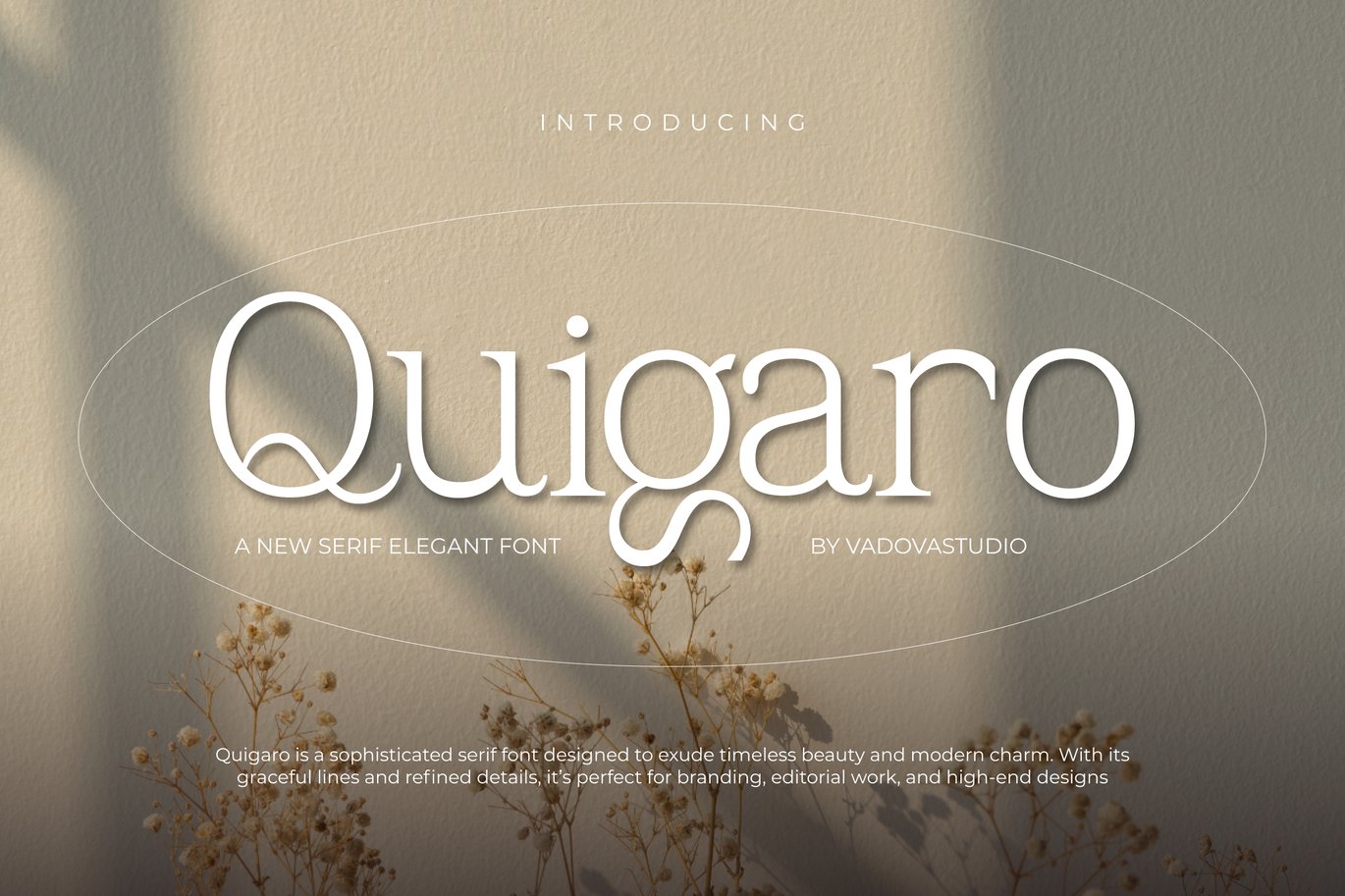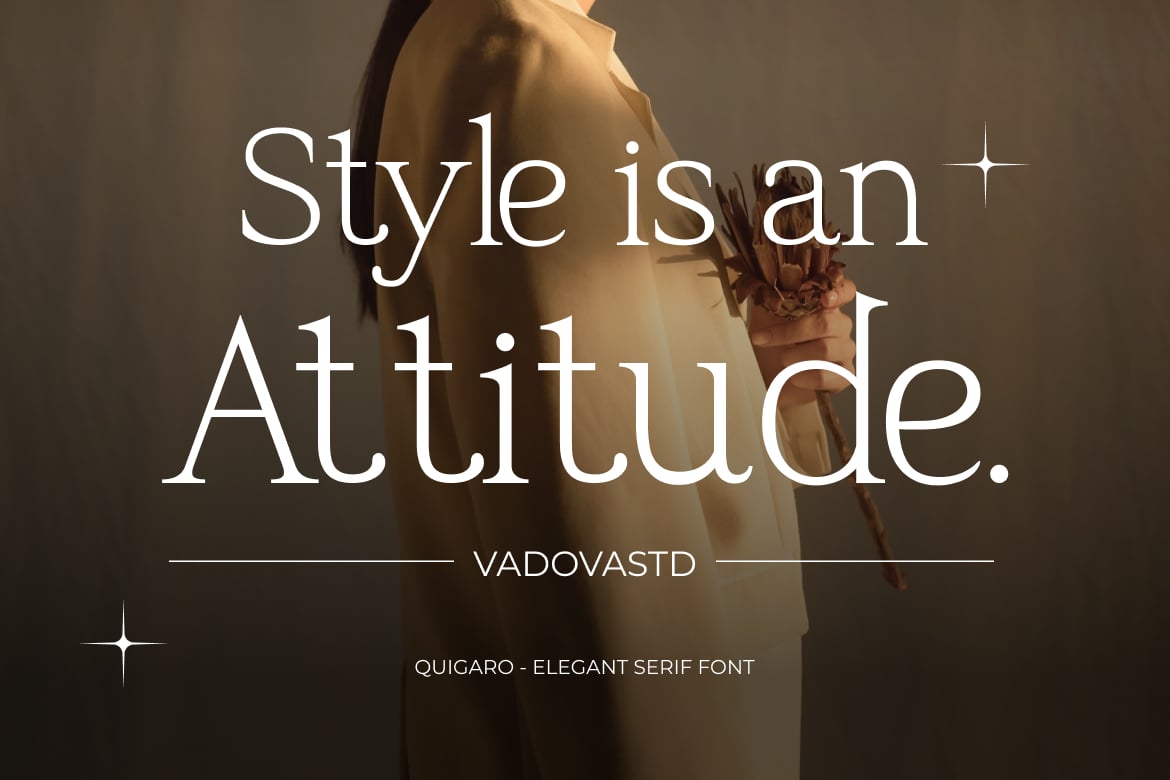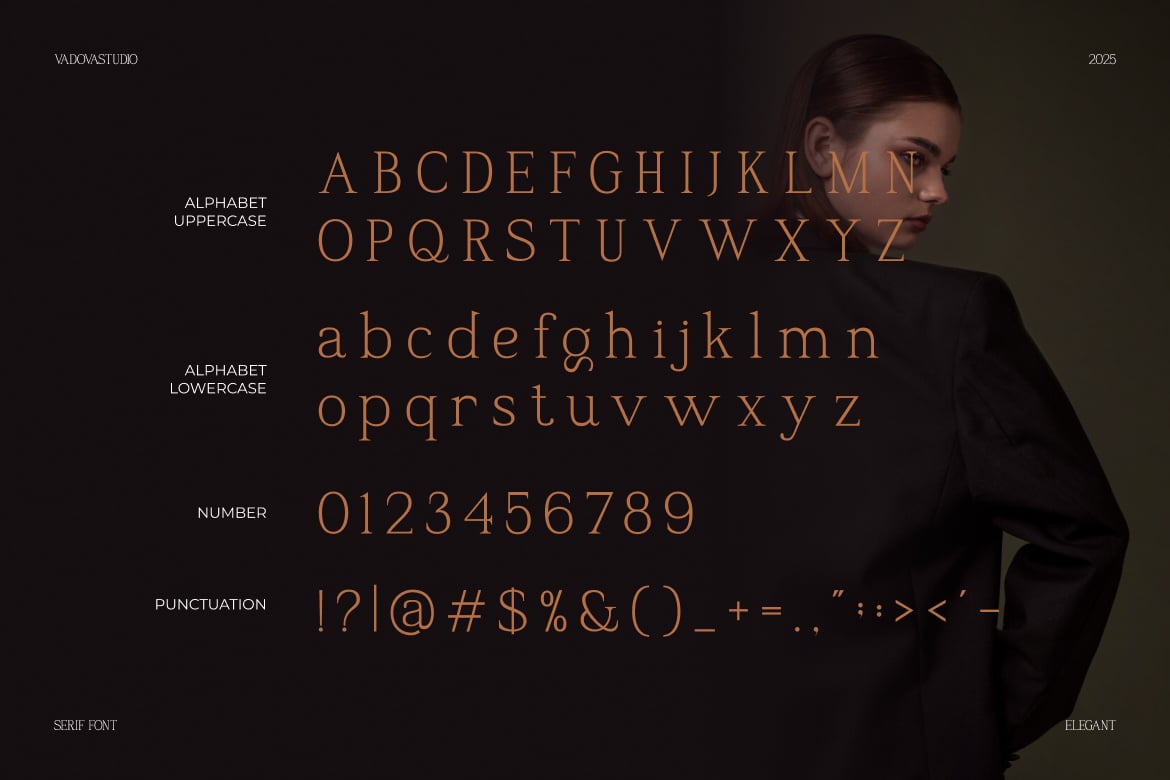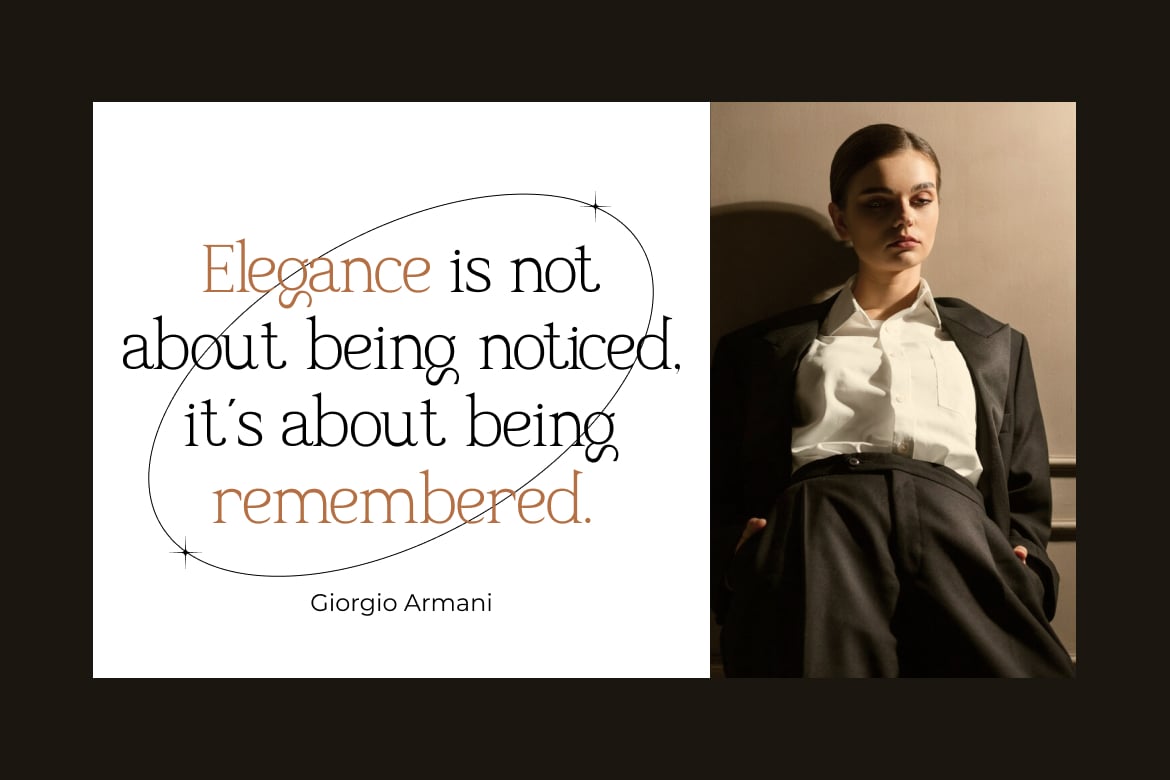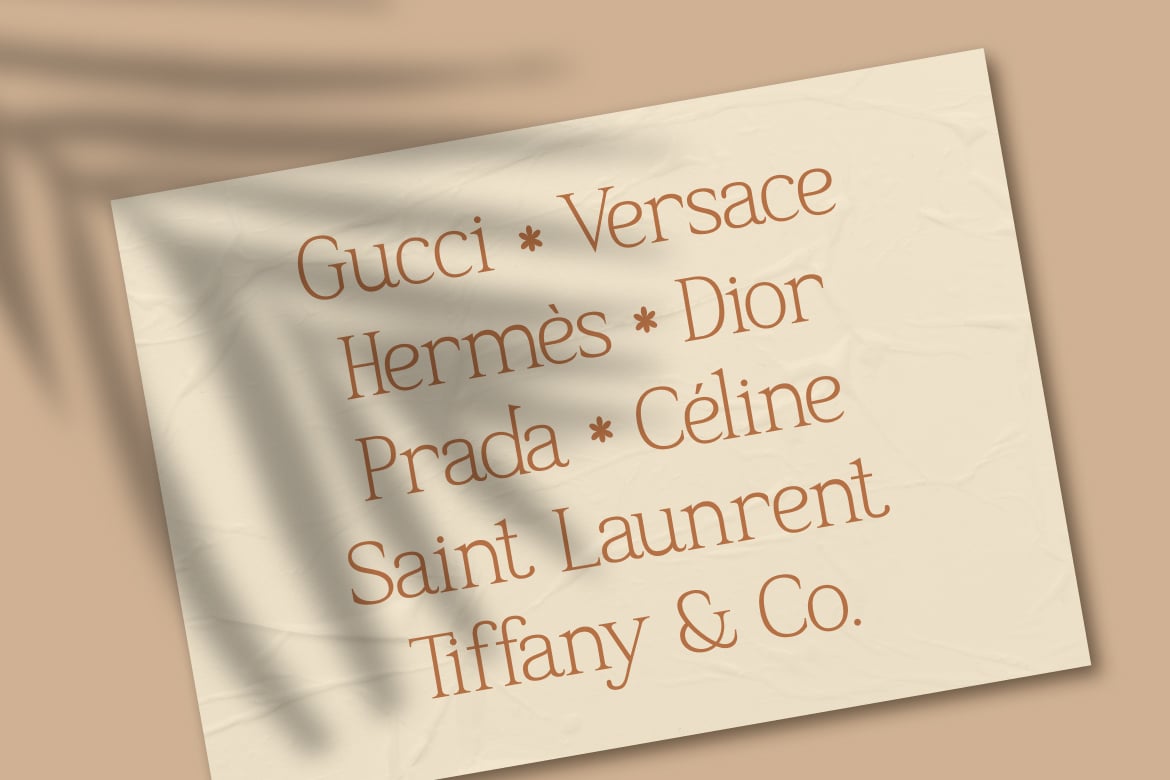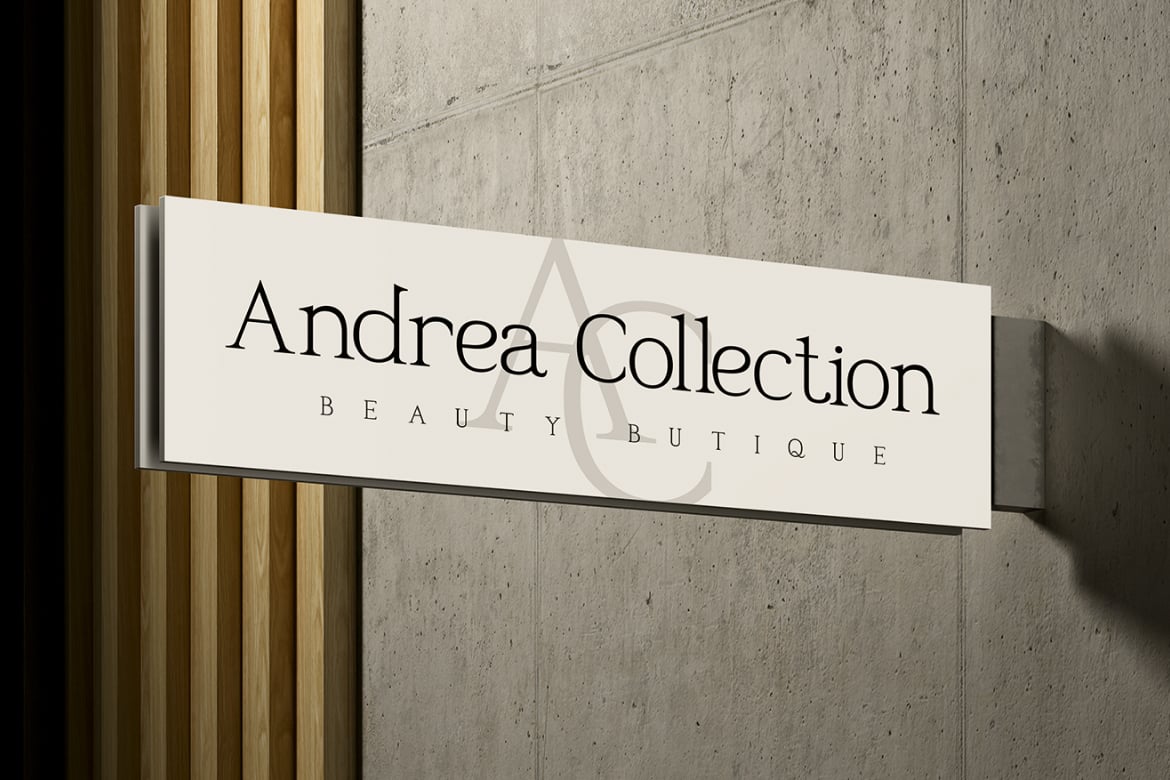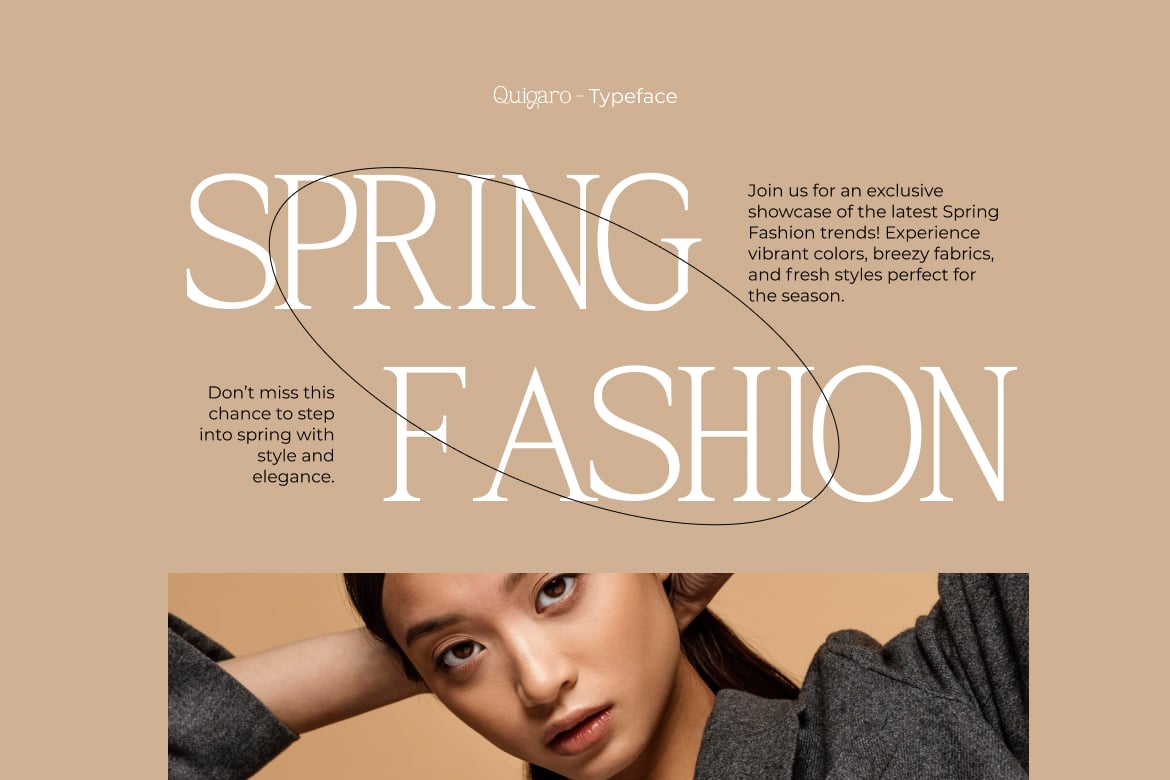
Quigaro Serif Elegant Font
Elevate your designs with Quigaro Serif Elegant Font, a modern font perfect for adding elegance and style to your projects. Whether it’s for quotes, logotypes, magazine headers, or more, this versatile typeface ensures your text stands out beautifully.
Main Features
- Uppercase & Lowercase characters
- Numeral & Punctuations